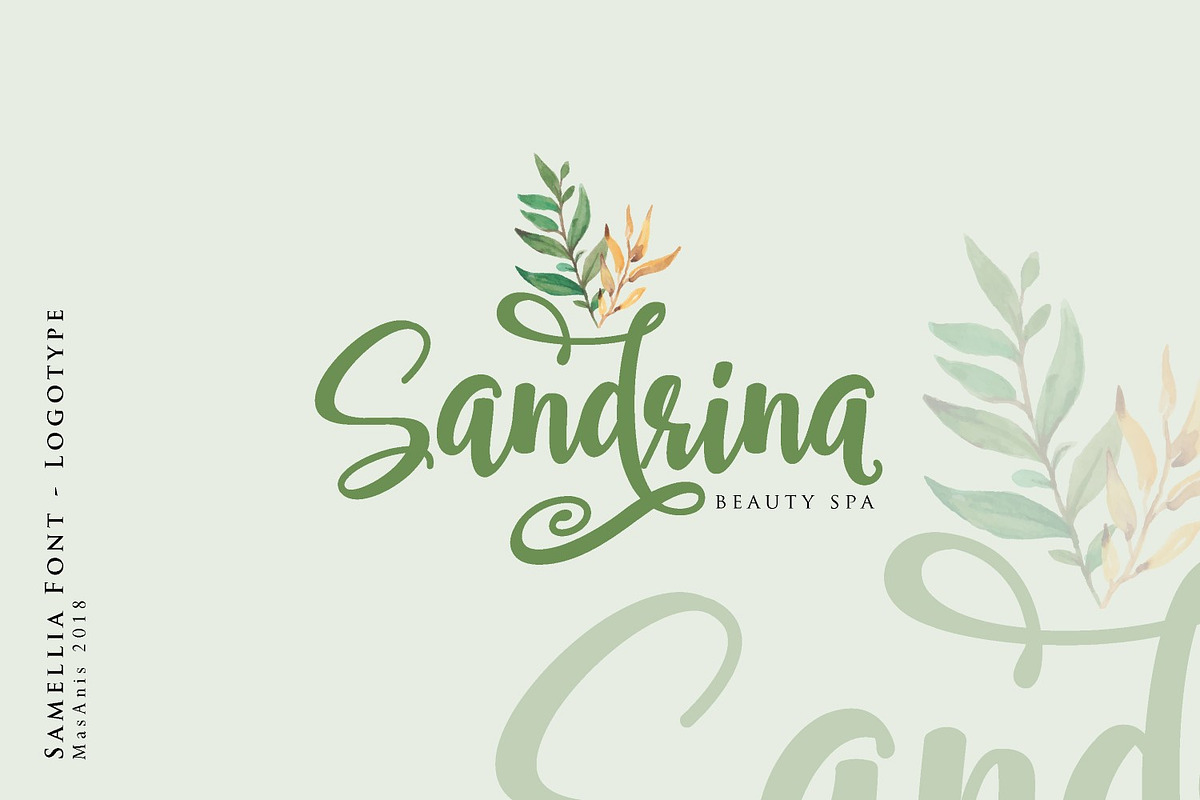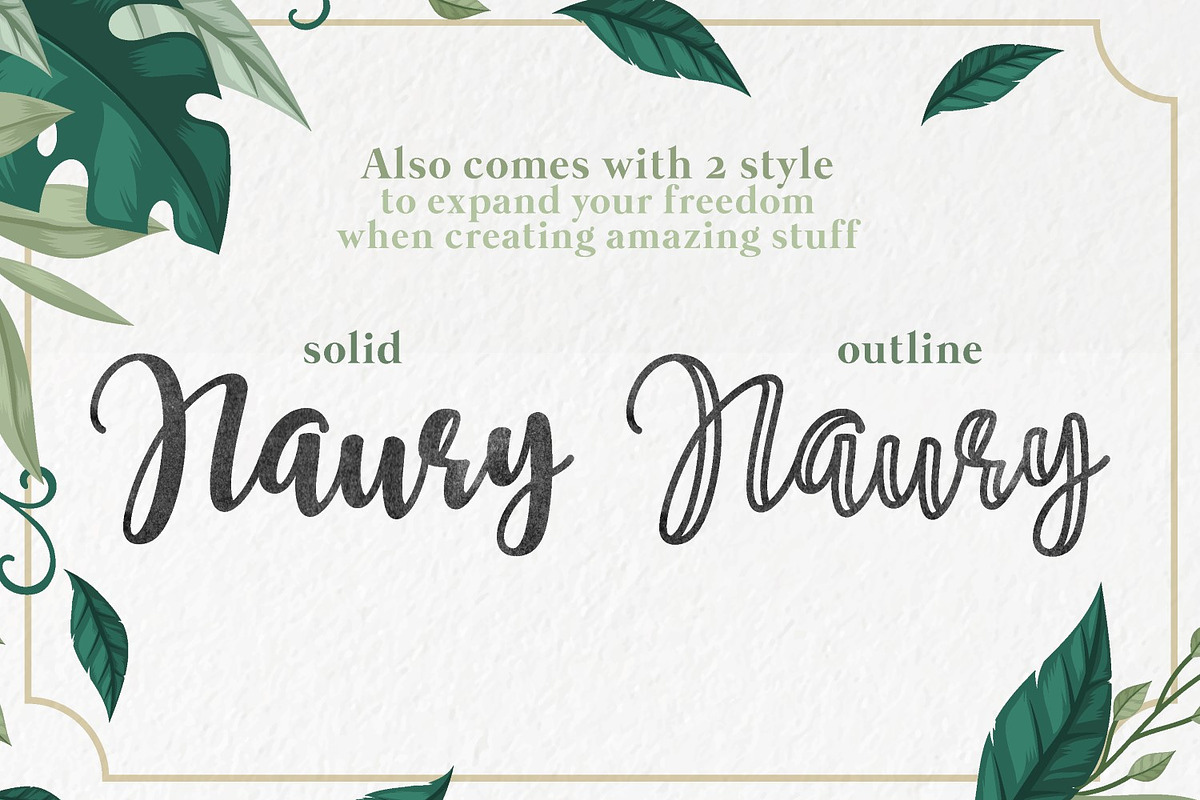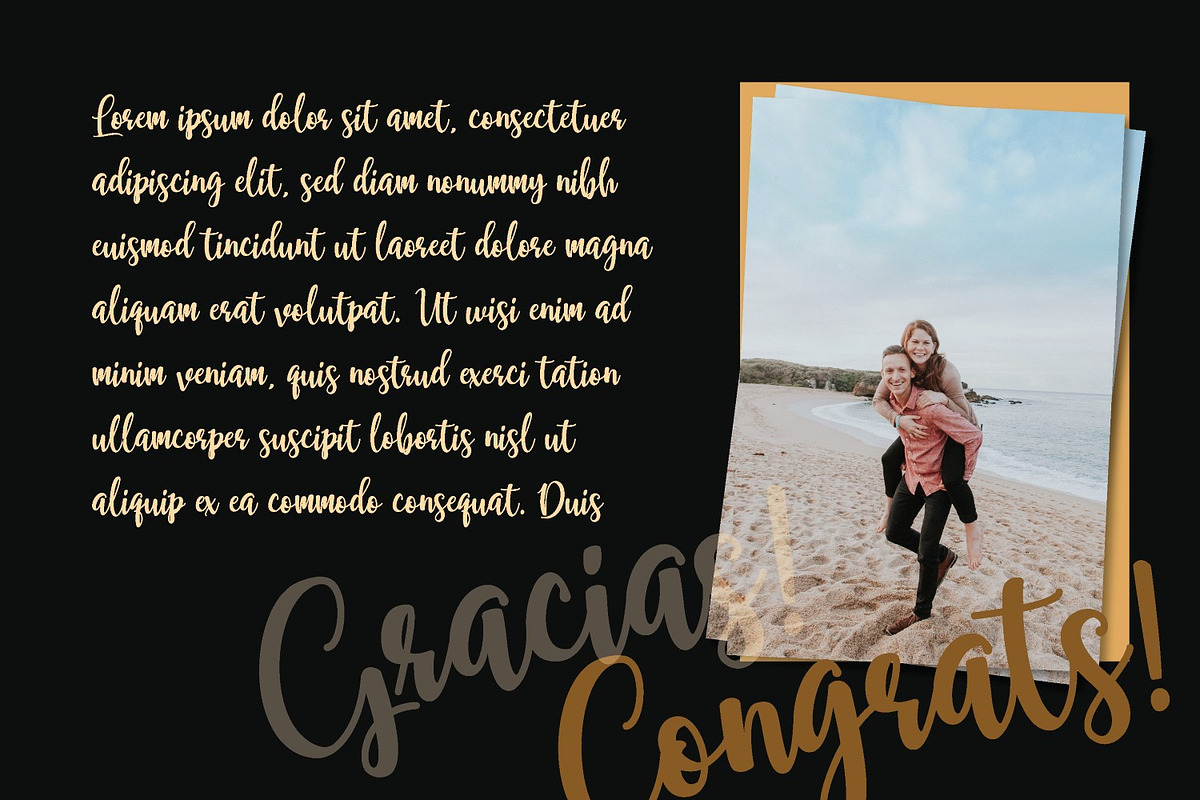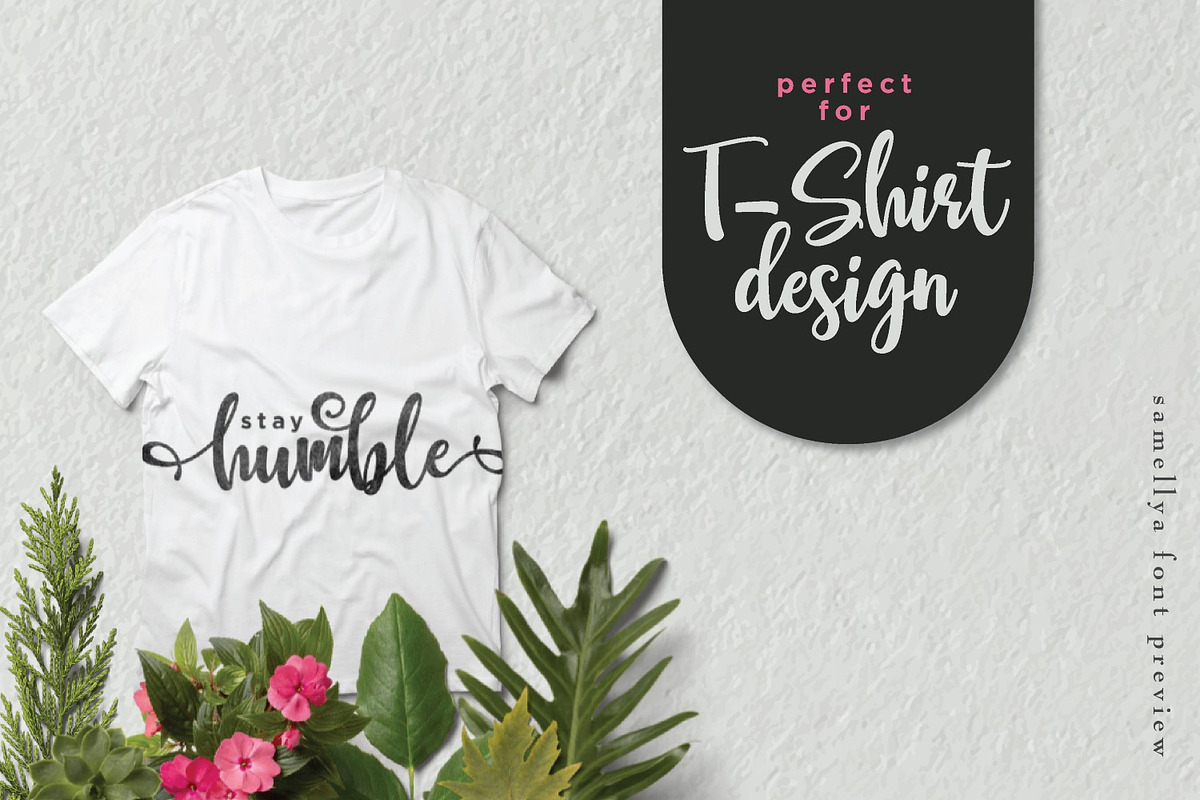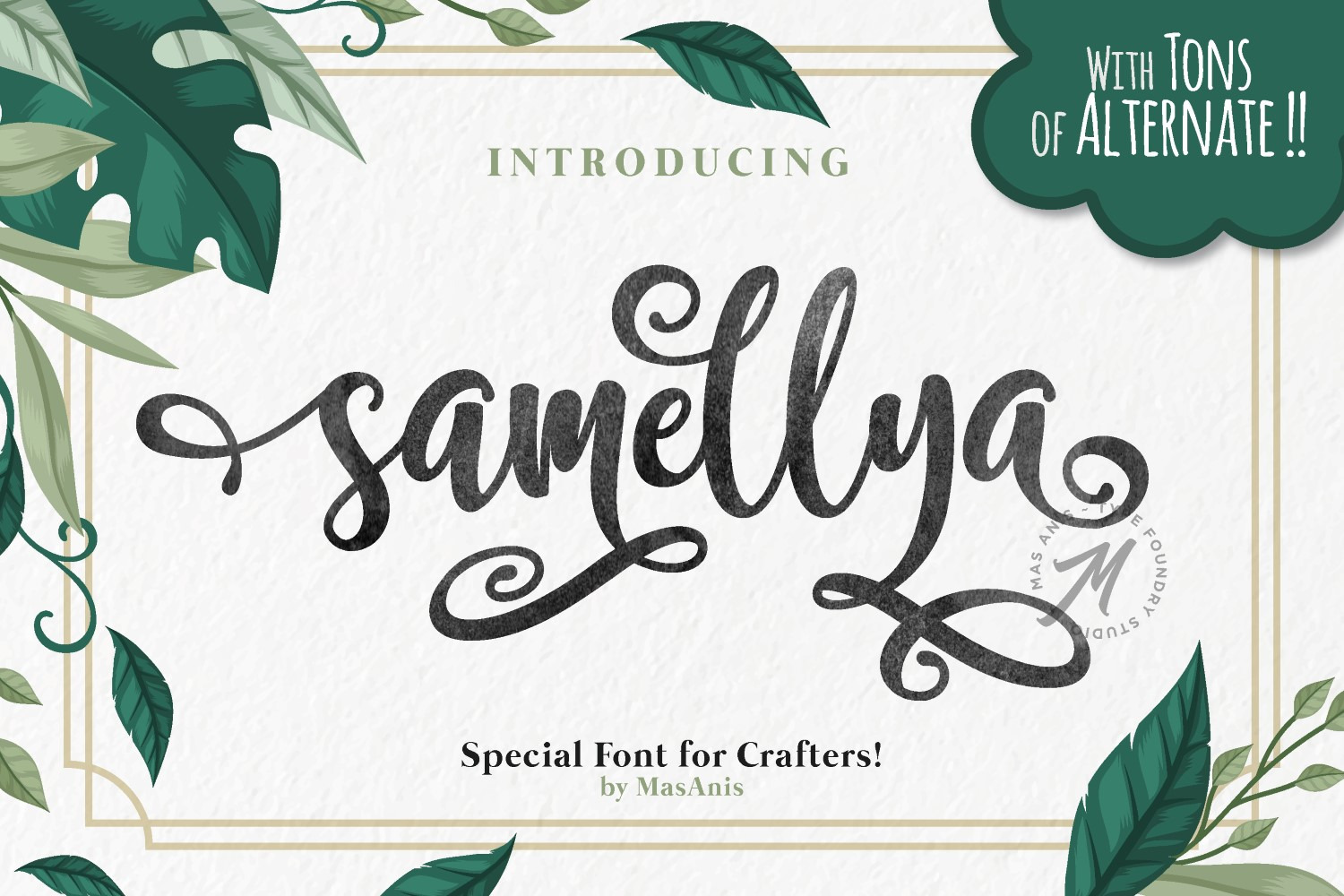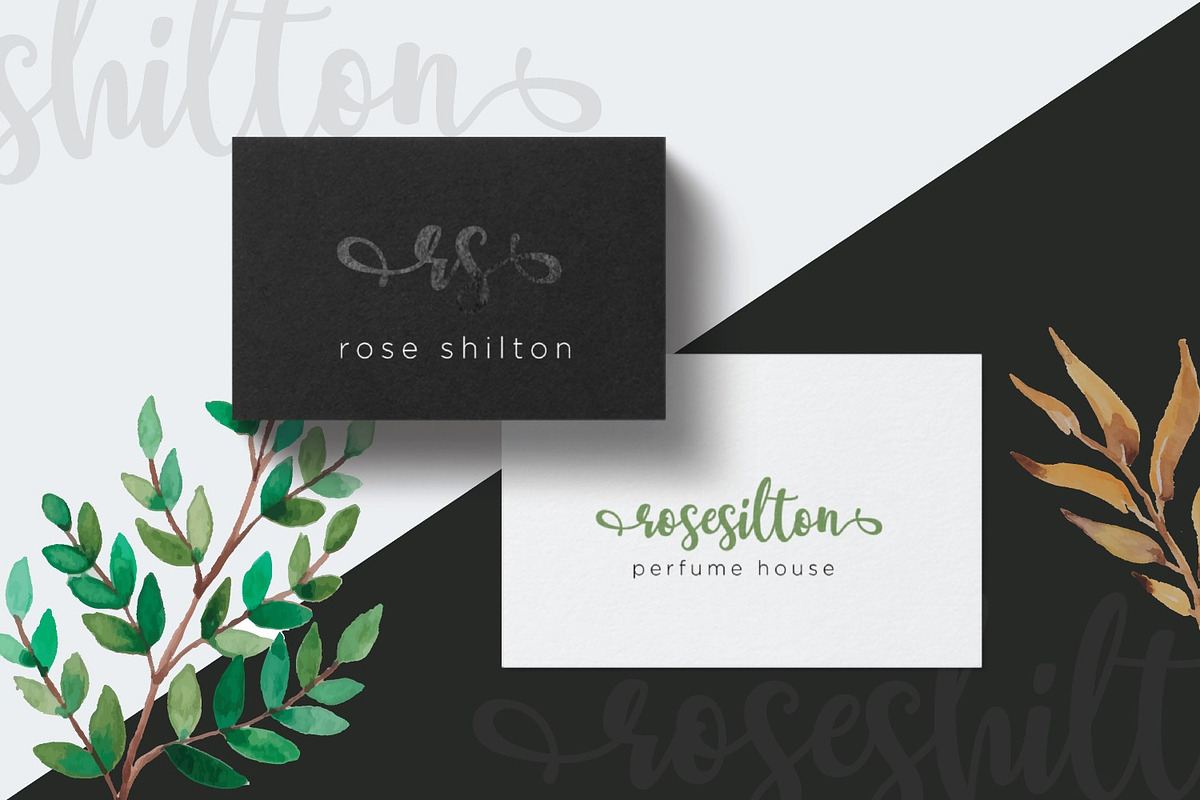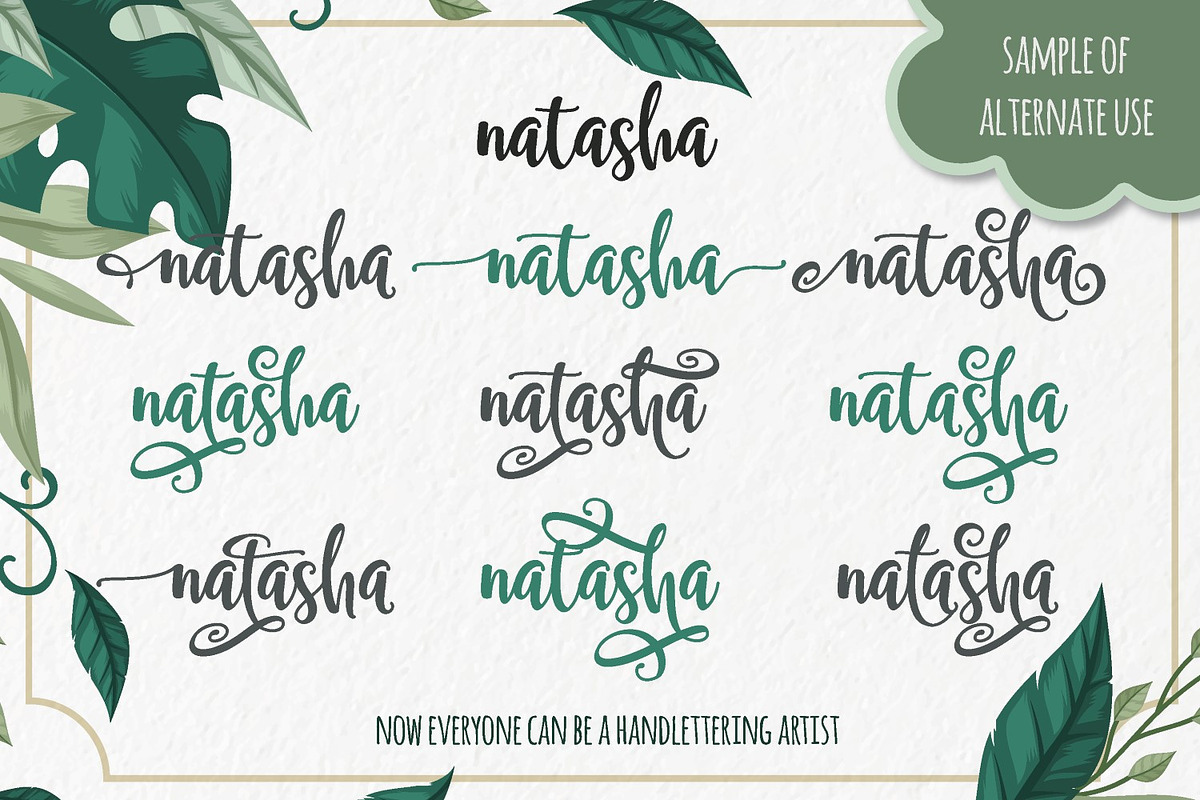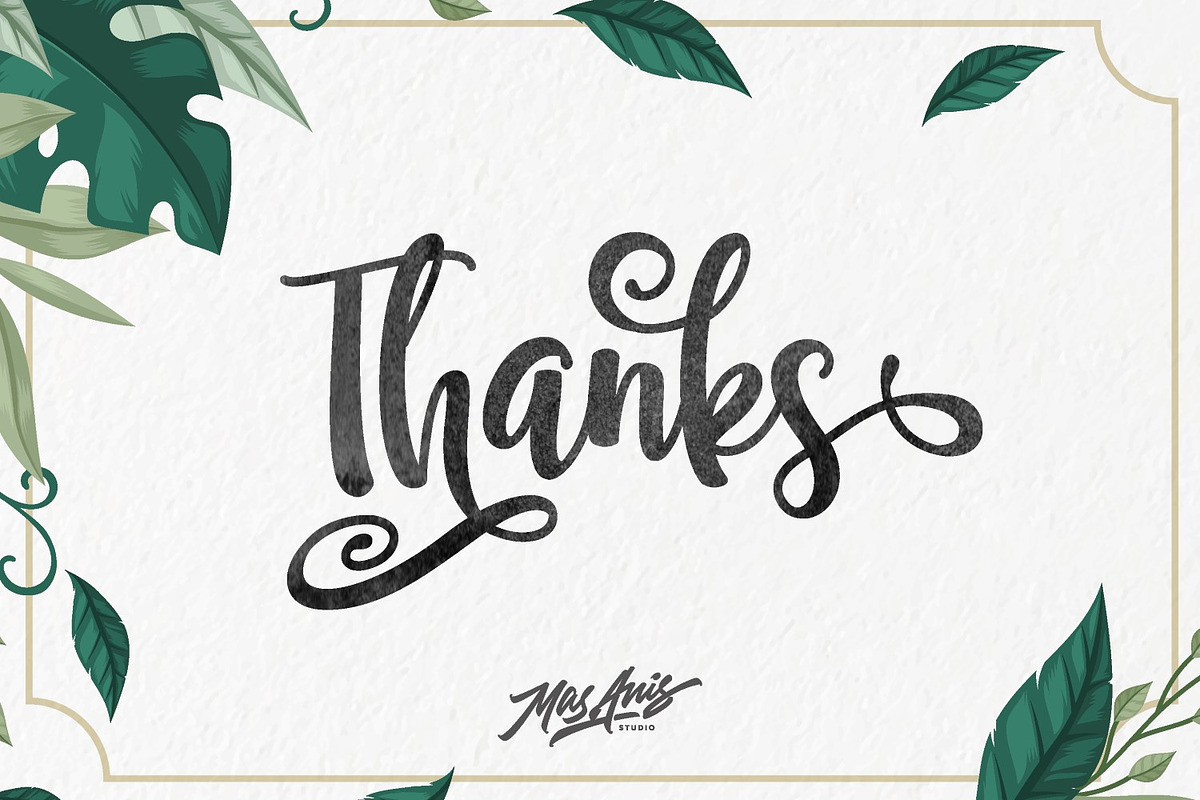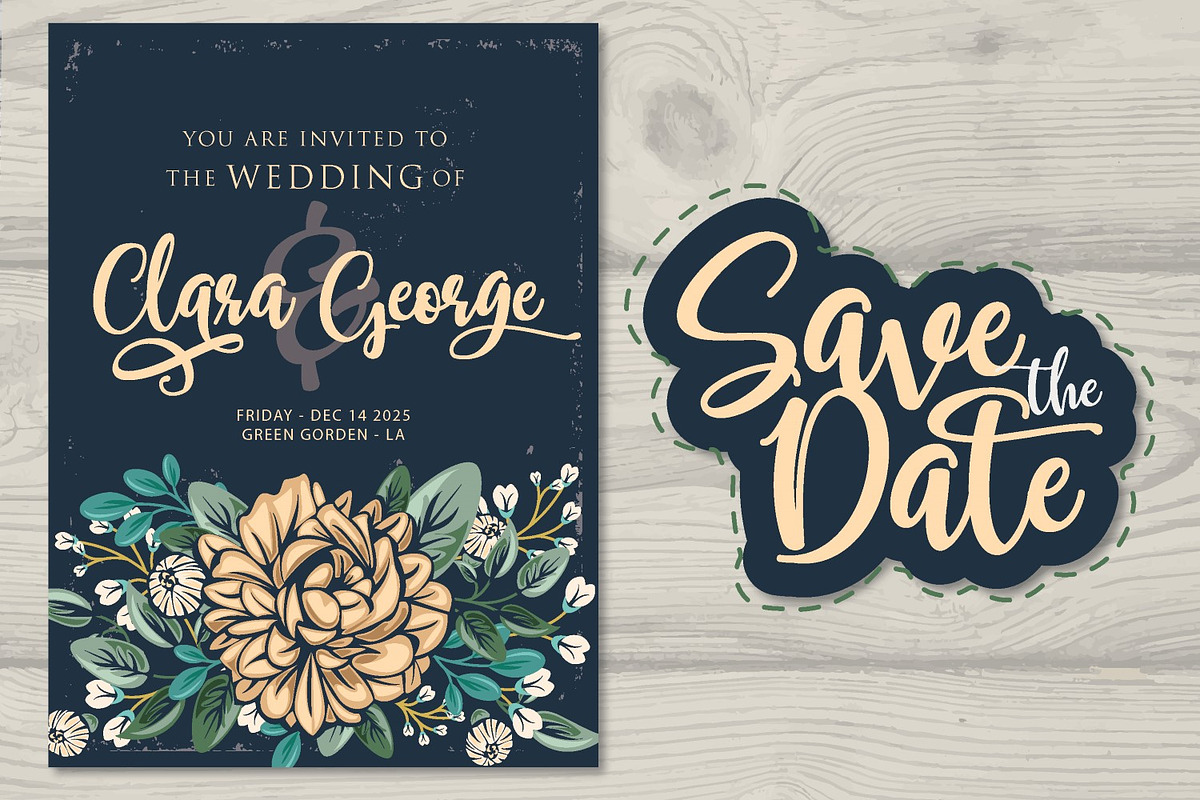
Samellya - Crafter's Font!
We would like to introduce our latest font Samellya !
Samellya is a font created specifically for crafters who want absolute design freedom, you can create anything you want with this decorative font, with a lot of swashes and alternates, this font will be great for any design project like merchandise, logo, invitation, quote, social media post, magazine cover, watermark, and many more!!
With all it’s swashes and alternates, this font is the perfect font to use over for each design project, you just need to turn your imagination on, and let the font do the rest!
Samellya also comes with outline style which will give another unique feel for your design. And of course support Multilingual (AÀÁÂÃÄÅCÇDÐEÈÉÊËIÌÍÎÏNÑOØÒÓÔÕÖUÙÜÚÛWYÝŸ) too!!